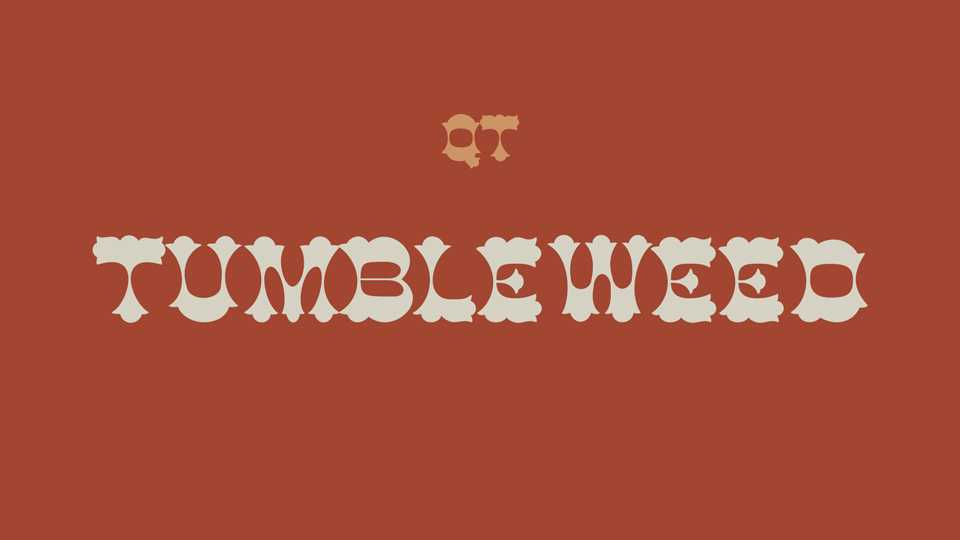
Download Tumbleweed font, a decorative typeface that displays the unmistakable look of the Wild West, based on the Cottonwood font. Tumbleweed is best used sparingly in headlines to best emphasize its decorative, ‘wild’ character.